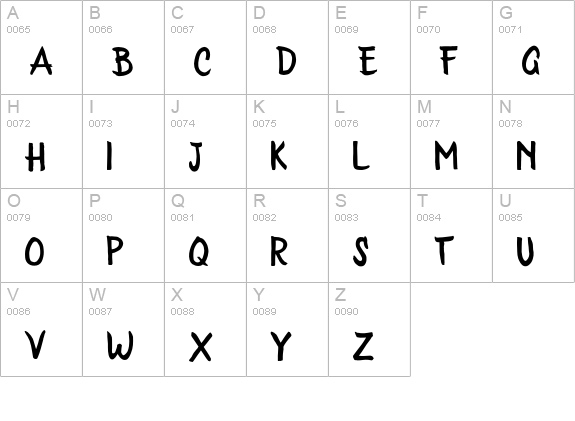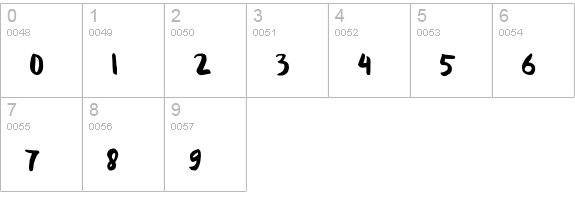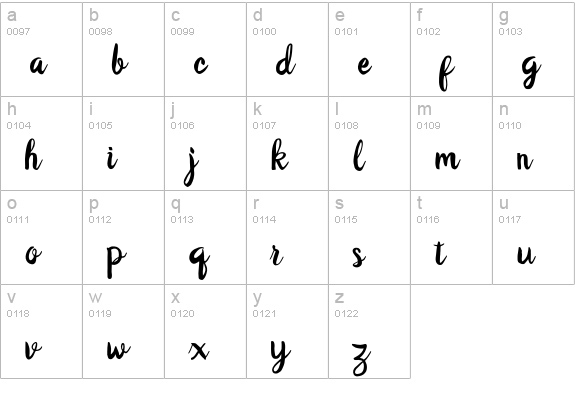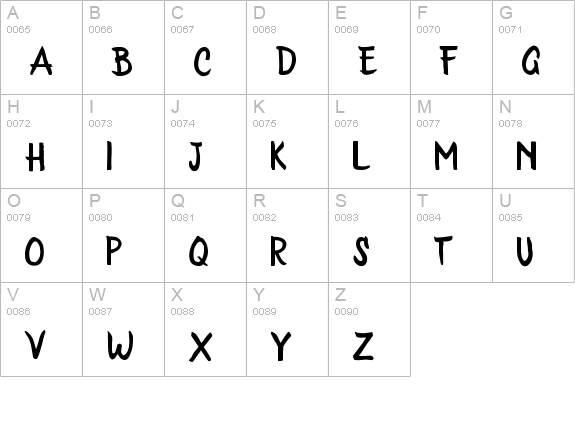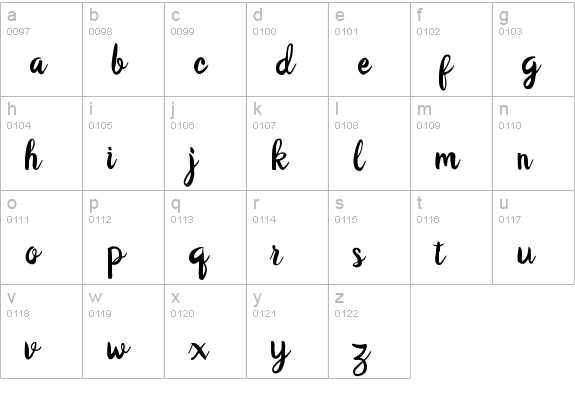
Vandella font is a stunning typeface that exudes elegance and sophistication. With its graceful curves and sleek lines, Vandella is perfect for adding a touch of class to any design project. Whether you're working on a wedding invitation, a business card, or a branding project, this font will elevate your work to the next level. The best part? Vandella font is completely free to download at FontsMarket.com. Yes, you read that right - this beautiful font can be yours at no cost at all. So why wait? Enhance your designs with Vandella font today and make a lasting impression on your audience.